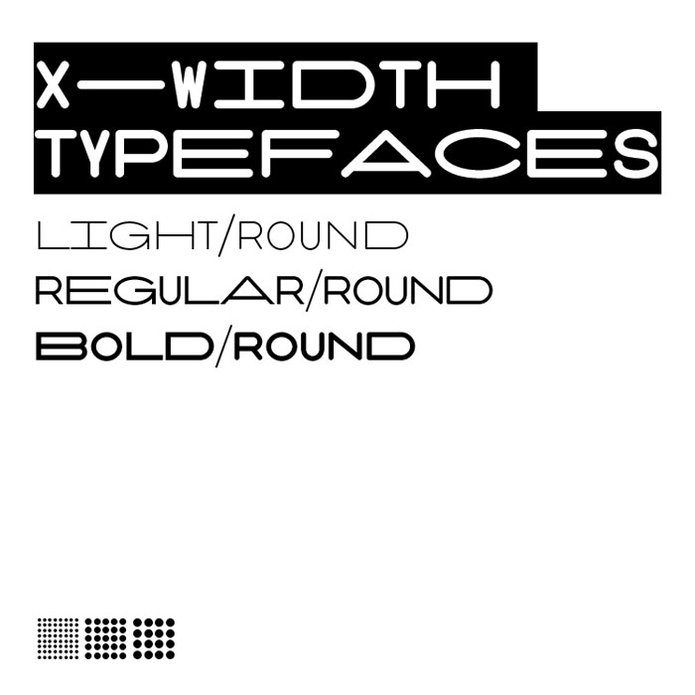
Font is based on the concept of expansion of the character alphabet from "A" to "Z". The width of the letter "A" is the basis and multiple duct of the font "X".